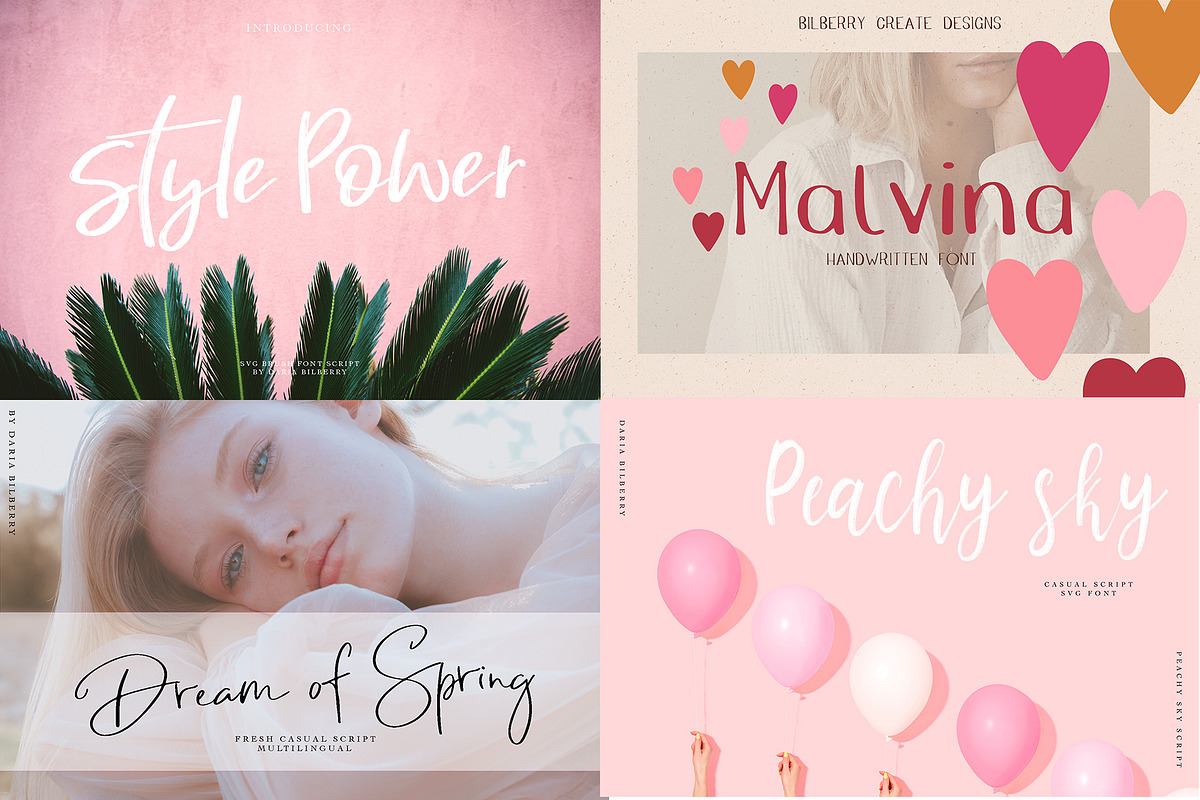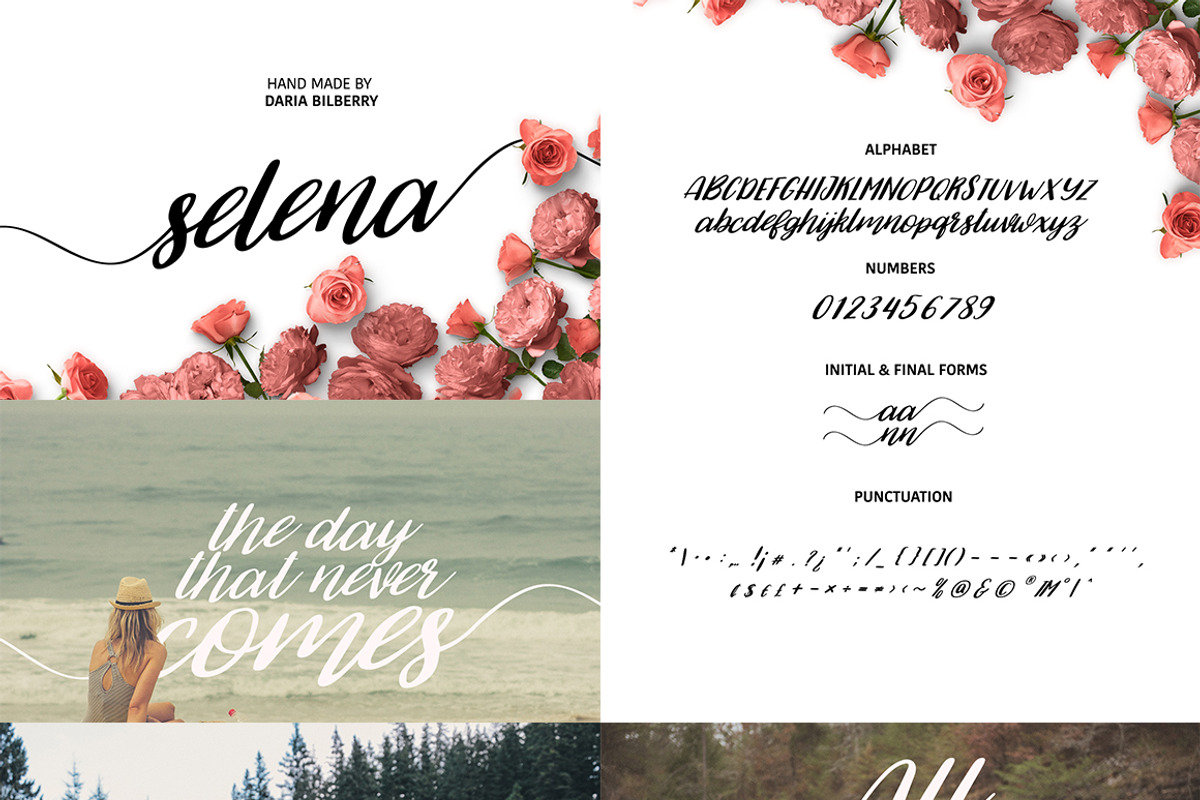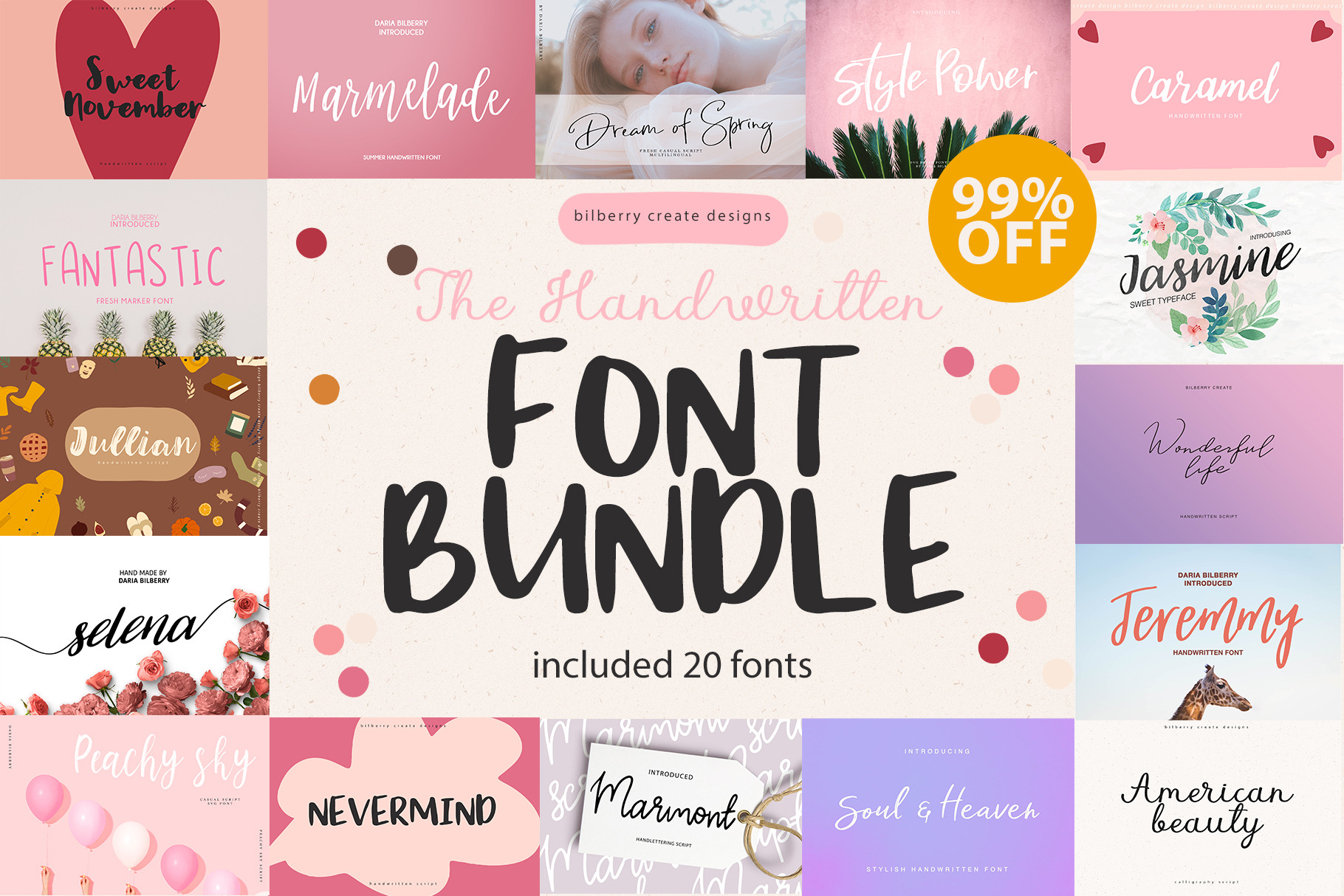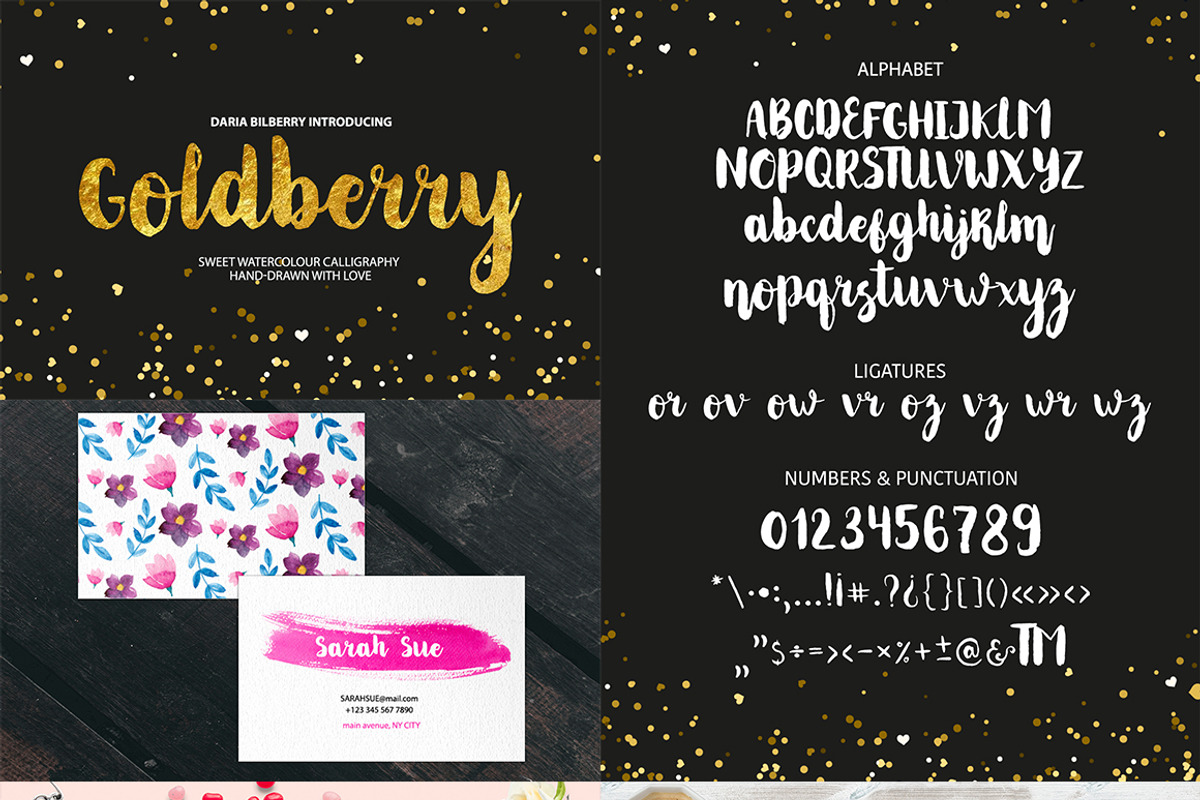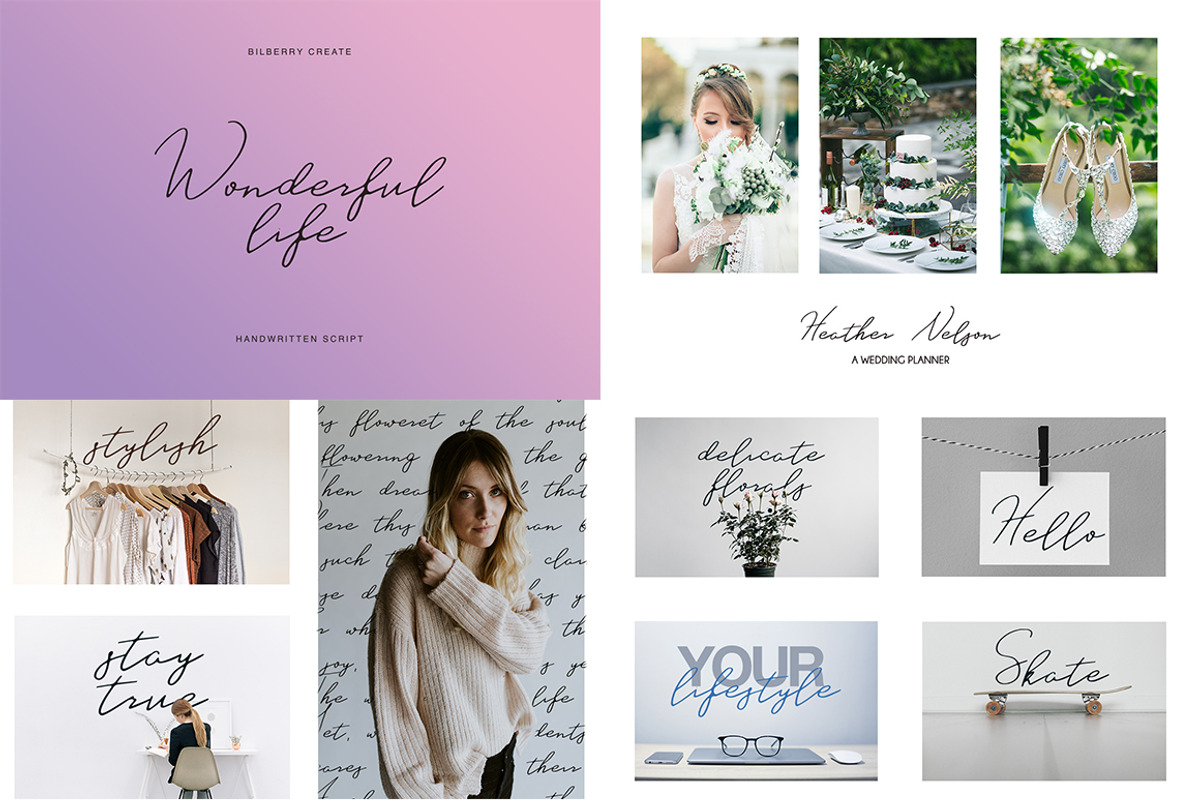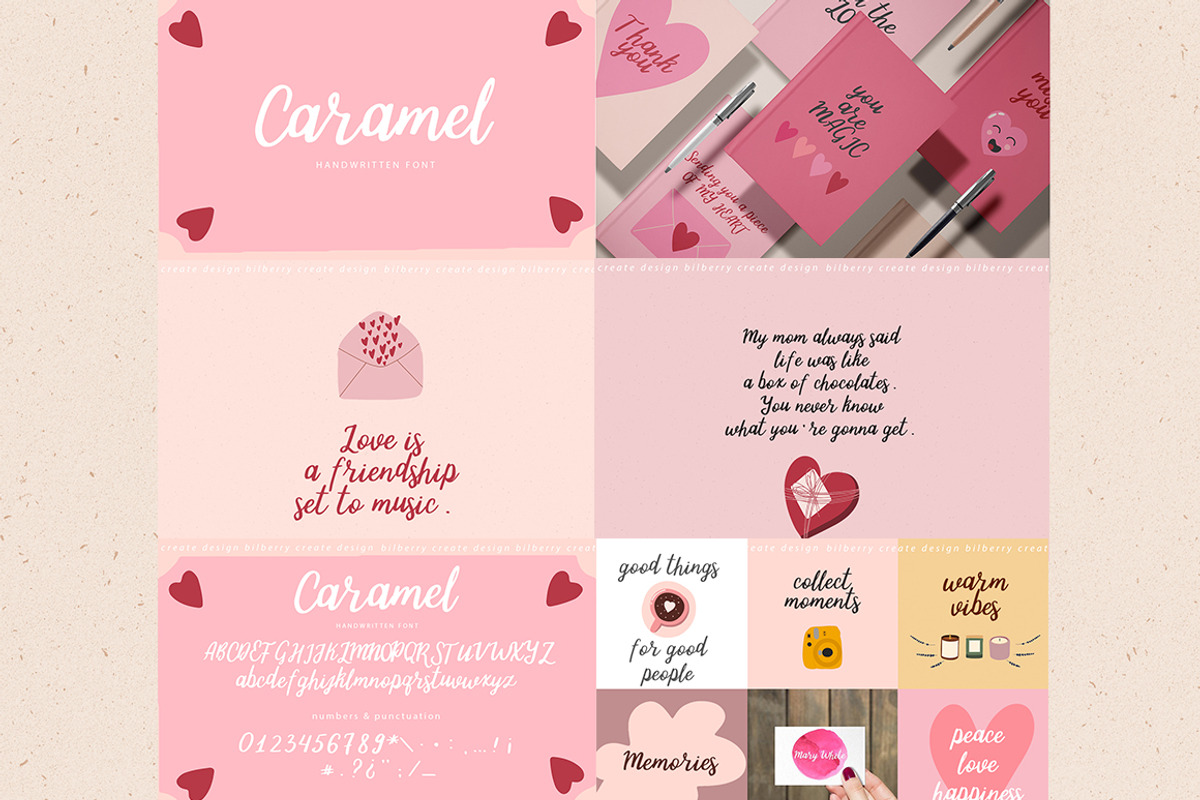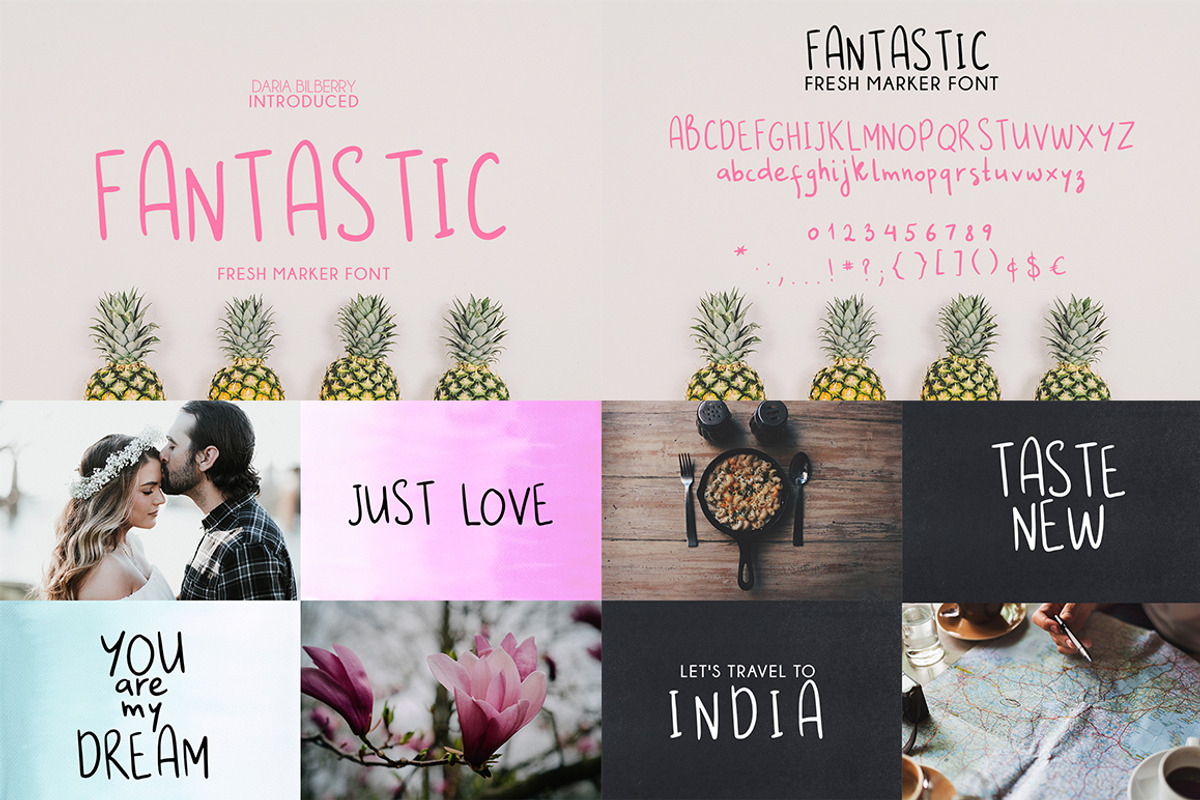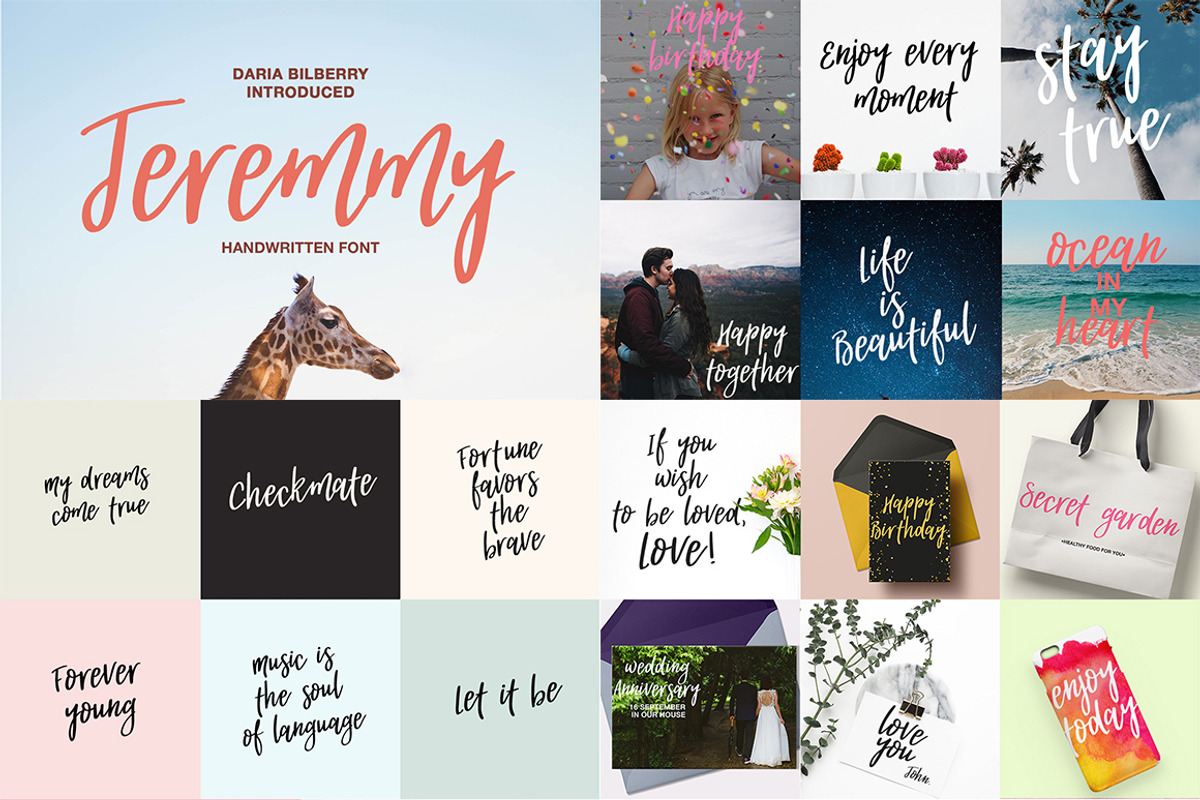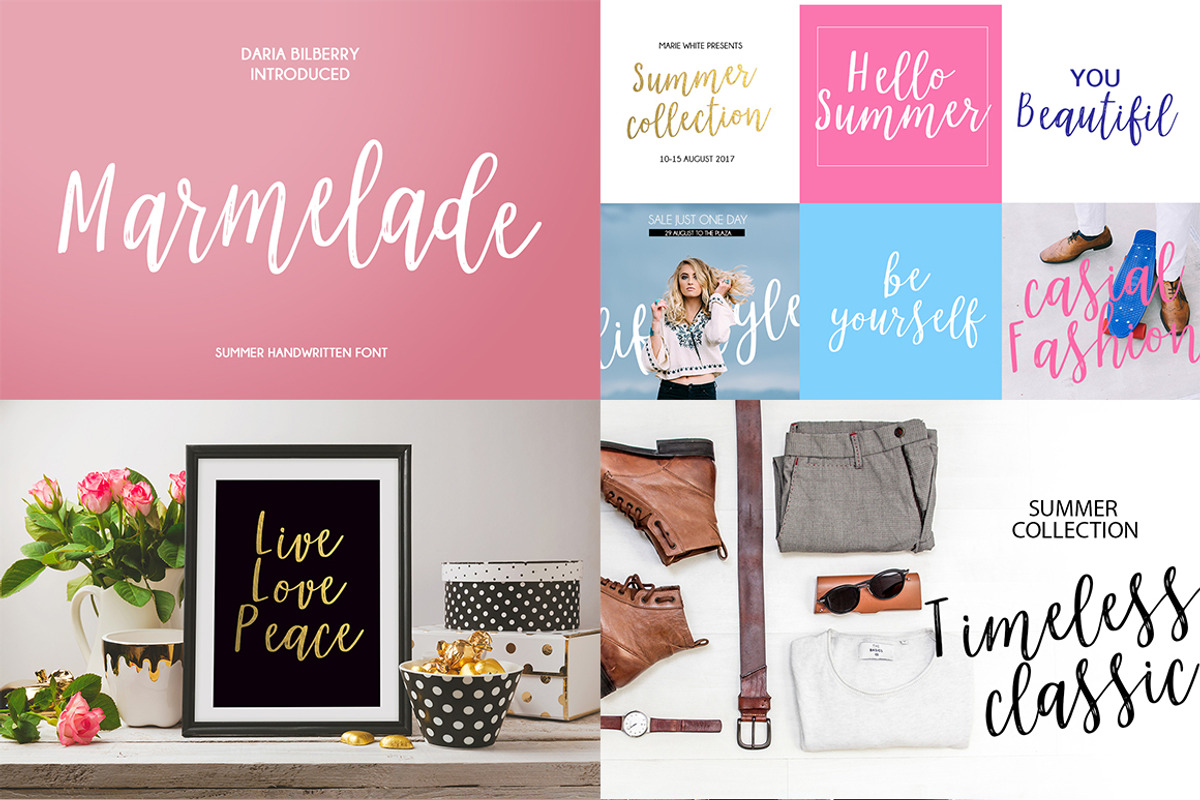
This pack can be used to create anything as you wish, logos invitation cards, wedding cards, birthday cards, home decor, packaging holiday gifts, party decorations, print on fabrics and so much more.
Perfect for adding a elegant and unique touch to your lettering projects and branding. Every single letters have been carefully crafted to make your text looks beautiful. With lettering script style this font will perfect for many different project ex: quotes, blog header, poster, wedding, branding, logo, fashion, apparel, letter, invitation, stationery, etc.
- Selena ( OTF, TTF, WOFF)
- Goldberry ( OTF, TTF )
- Marigold ( OTF, TTF, WOFF) MULTILINGUAL
- Jullian ( OTF, TTF, WOFF)
- Fantastic ( OTF, TTF, WOFF)
- Landmark ( OTF, TTF, WOFF)
- Marmelade ( OTF, TTF, WOFF)
- Caramel handwritten font( OTF, TTF, WOFF)
- Jeremmy handwritten font ( OTF, TTF, WOFF)
- American Beauty ( OTF, TTF, WOFF) MULTILINGUAL
- Wonderful life script ( OTF, TTF, WOFF)
- Sweet November script ( OTF, TTF, WOFF)
- Nevermind script( OTF, TTF, WOFF)
- Marmont script ( OTF, TTF, WOFF)
- Soul&Heaven ( OTF, TTF, WOFF)
- Peachy sky SVG casual script ( OTF, TTF, WOFF, SVG) MULTILINGUAL
- Style Power (SVG script) ( OTF, TTF, WOFF) MULTILINGUAL
- Dream of Spring ( OTF, TTF, WOFF) MULTILINGUAL
- Jasmine ( OTF, TTF, WOFF)
- Malvina (OTF, TTF)